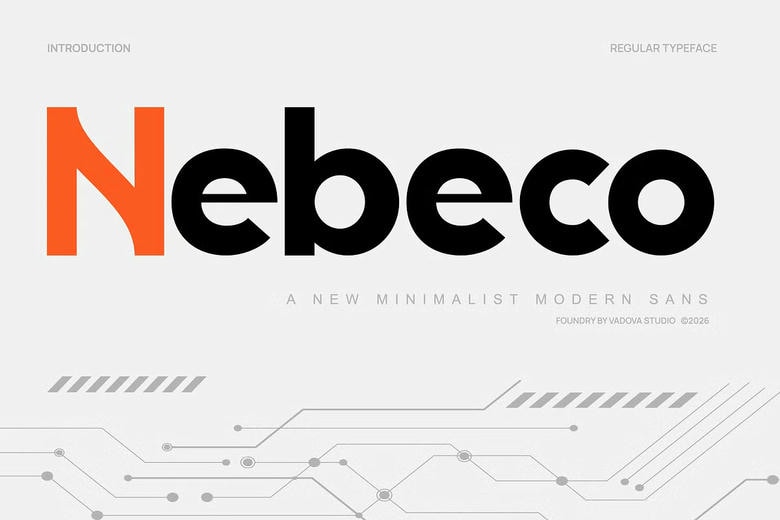
Nebeco Font
Nebeco is a crisp and assured contemporary sans serif typeface that is constructed on minimalistic philosophy. This typeface is constructed on balanced proportions and polished geometric composition, and it provides clarity and precision, as well as modern elegance. Nebeco has high uppercase shapes, smooth lowercase constructions, and well-designed spacing that ensure that the typeface has high legibility on print as well as digital platforms.
Relevance and Uses Cases Nebeco is very relevant to the present-time brands in need of clarity and professionalism. It is ideal with corporate identity systems, technology startups, digital platforms, product packaging, architectural presentations, editorial magazines, website heads, and minimalist logo design.
Nebeco Modern Sans Serif Font